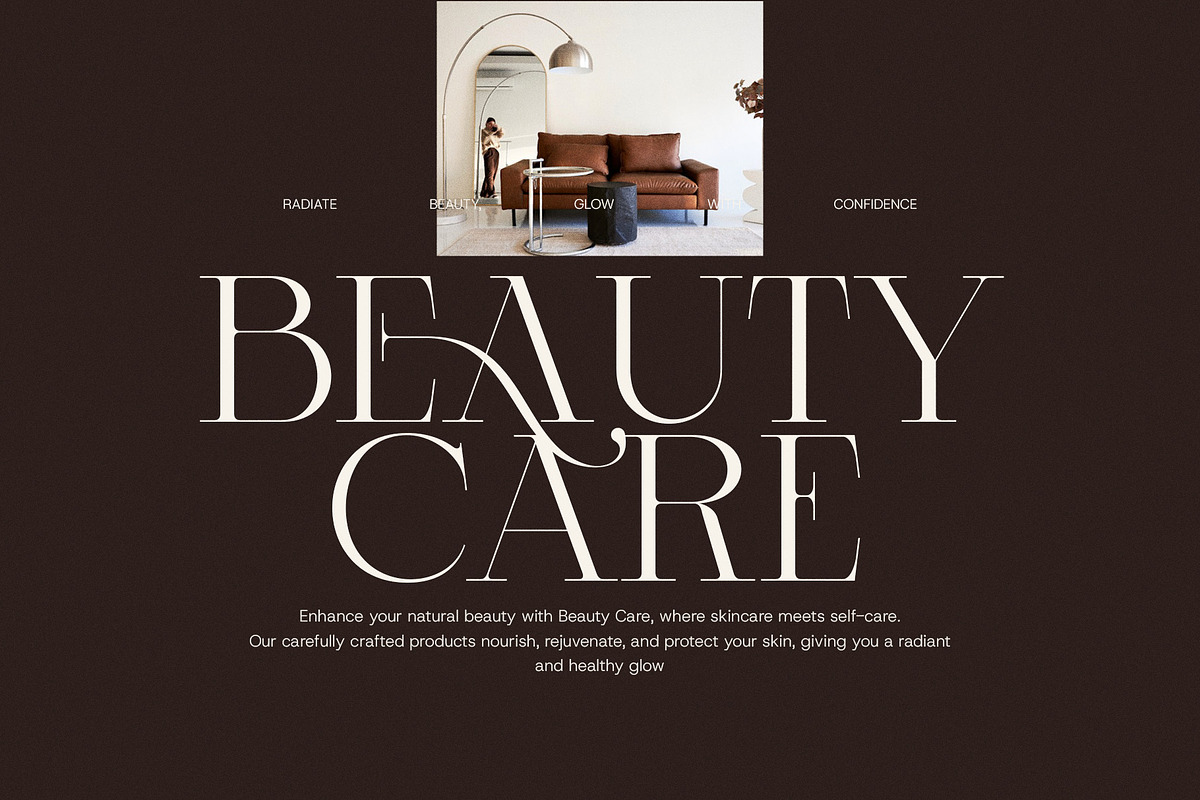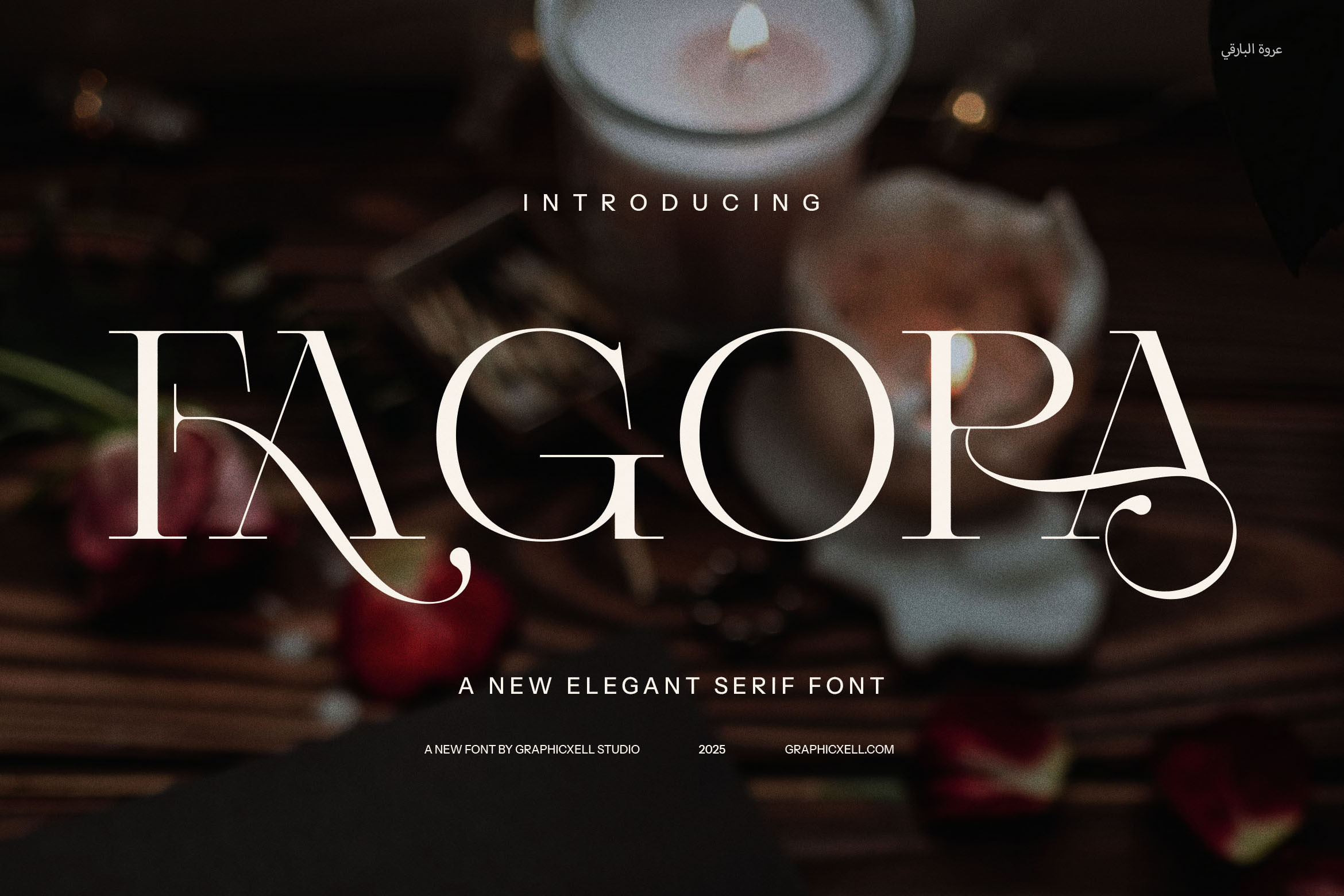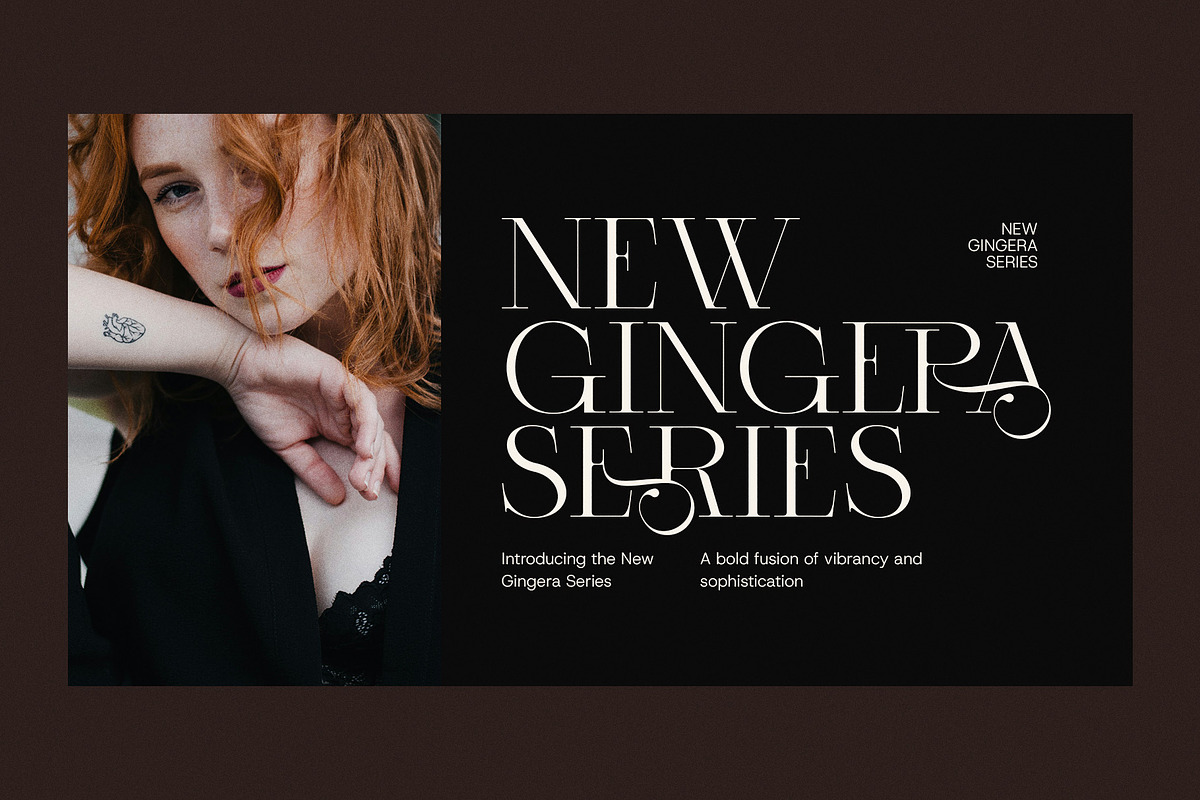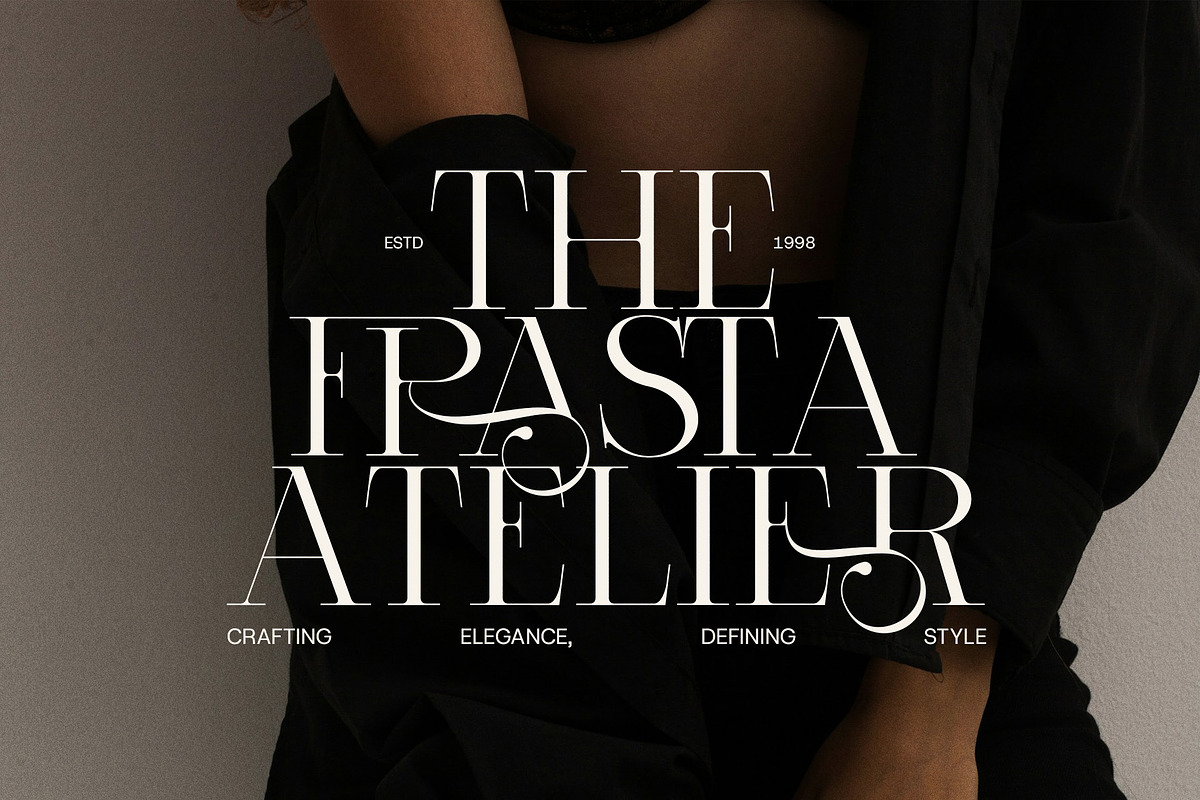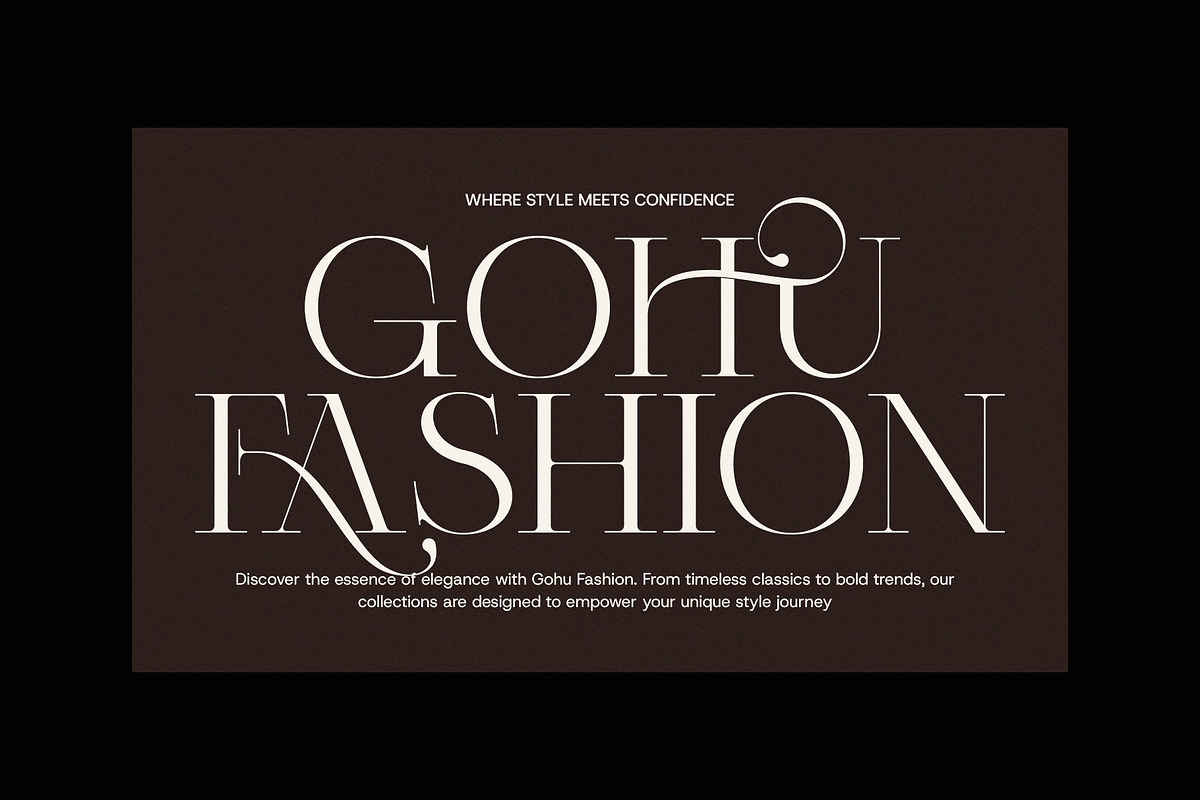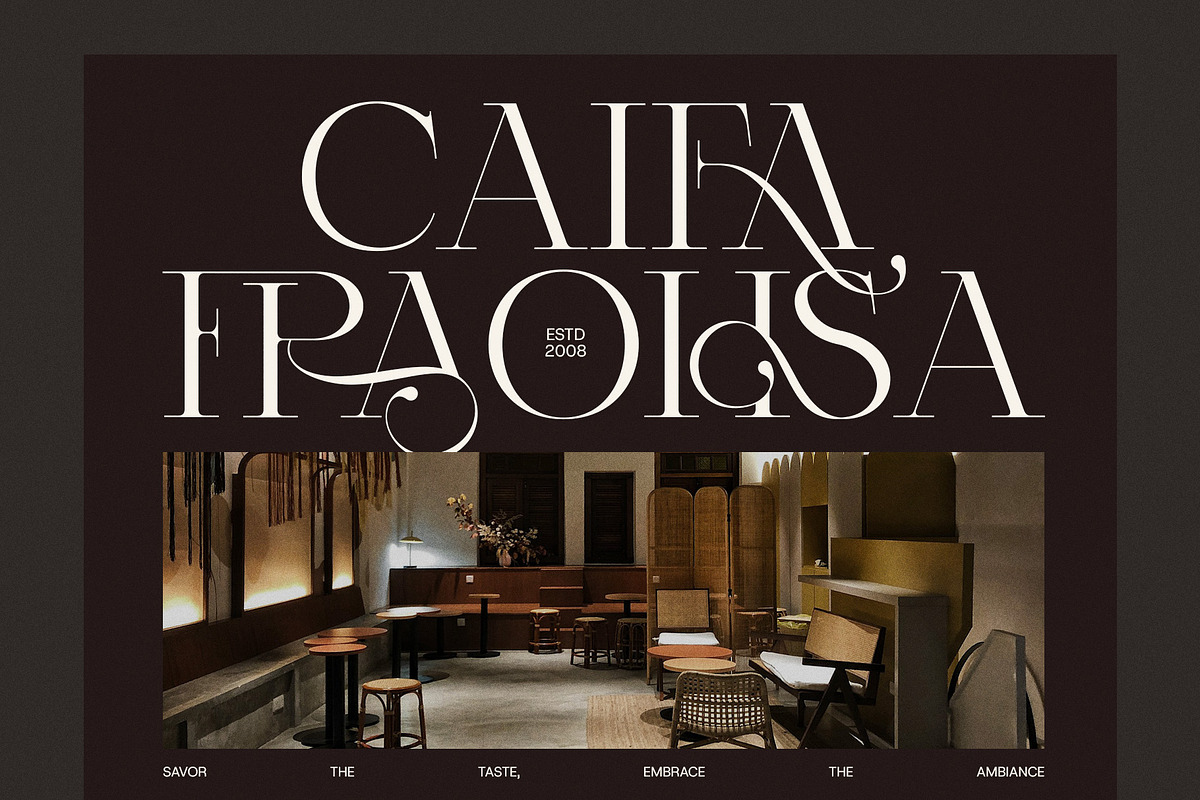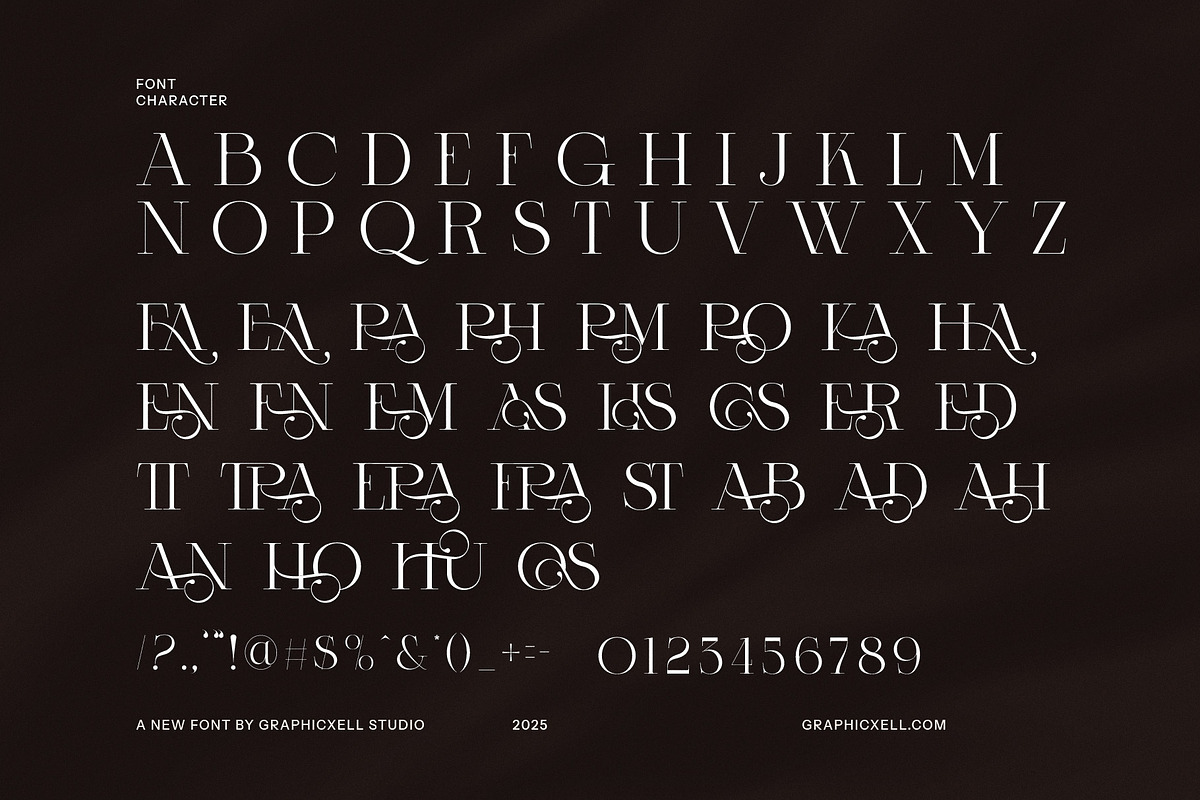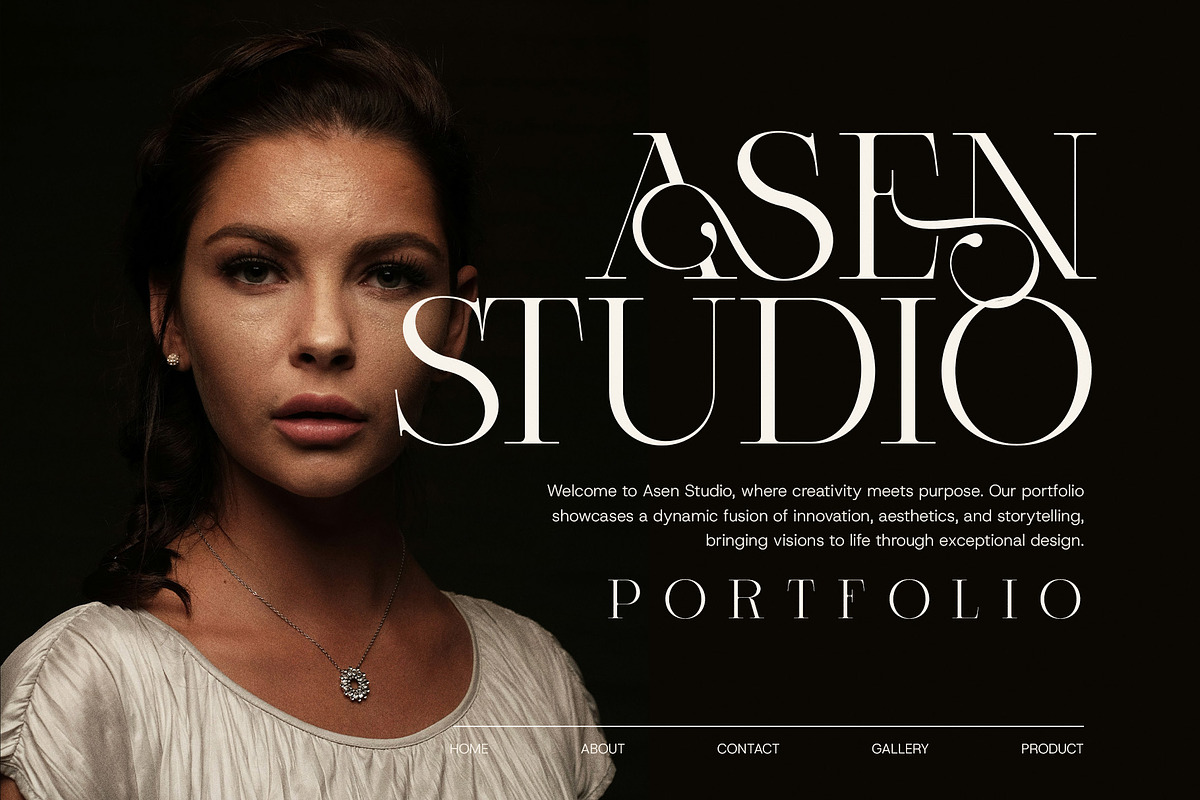
Fagora Calligraphy Serif Font
Fagora Calligraphy Serif Font is a stunning blend of modern sophistication and classic calligraphy, designed to add an elegant and artistic touch to any project. This typeface stands out with its graceful curves and refined letterforms, offering unique ligatures and alternates that give it a personalized, handcrafted feel. Fagora is perfect for designers looking to create logos, branding, websites, magazines, and advertisements that make a lasting impression.
Whether you're designing for a boutique, a high-end food brand, or a luxury product line, Fagora’s flowing, stylish characters infuse your designs with character and charm. The font's calligraphic roots bring a sense of fluidity and elegance, while its modern serif structure ensures versatility and readability across both print and digital mediums.
Fagora Calligraphy Serif Font excels in upscale projects where distinction is key. Its unique ligatures and alternate forms allow for creative customization, making it an excellent choice for those wanting to create truly bespoke, standout typography. Perfect for invitations, branding materials, product packaging, and more, Fagora brings a premium, refined aesthetic that enhances any visual identity.
With its blend of sophistication and artistic flair, Fagora is the perfect font for anyone looking to elevate their designs with a modern, elegant touch. Whether you’re crafting a logo, designing a magazine layout, or developing a website, Fagora Calligraphy Serif Font will help your designs stand out with effortless beauty.